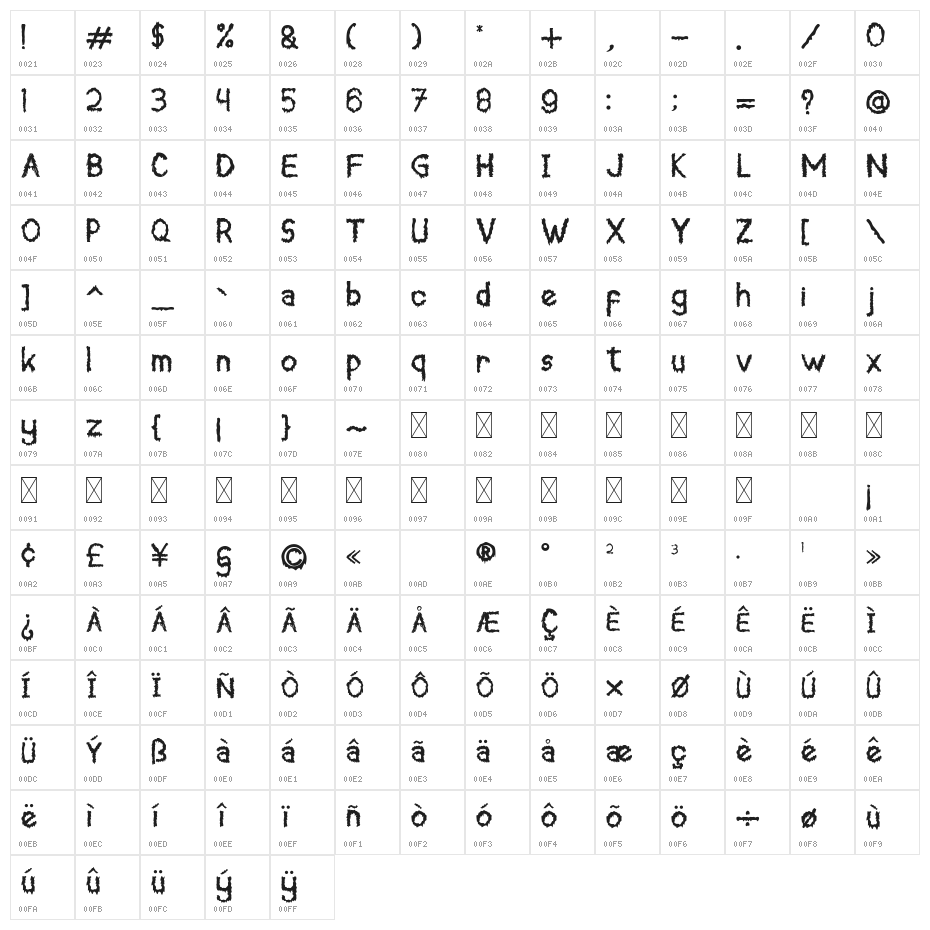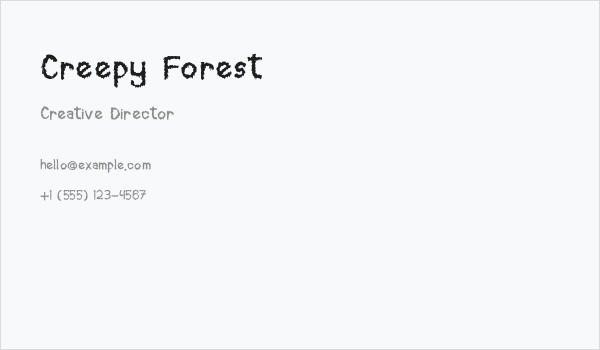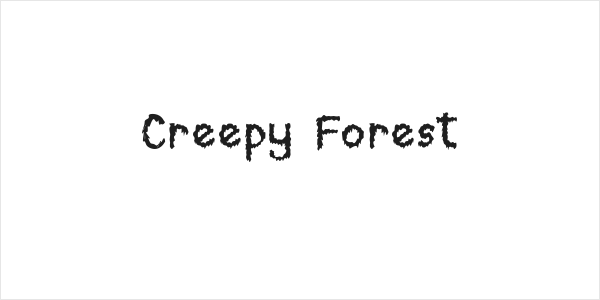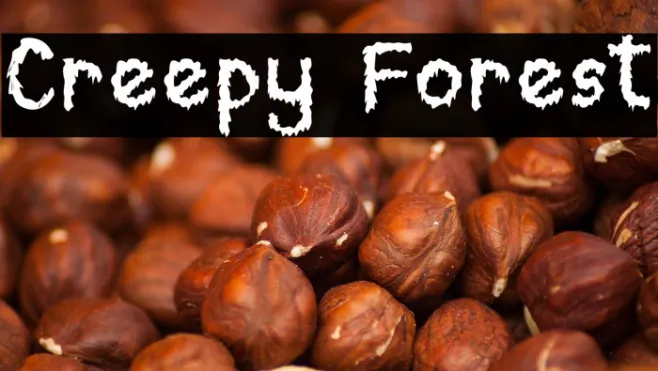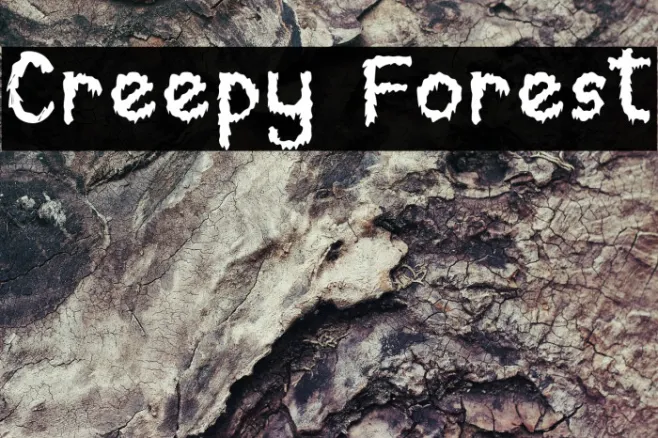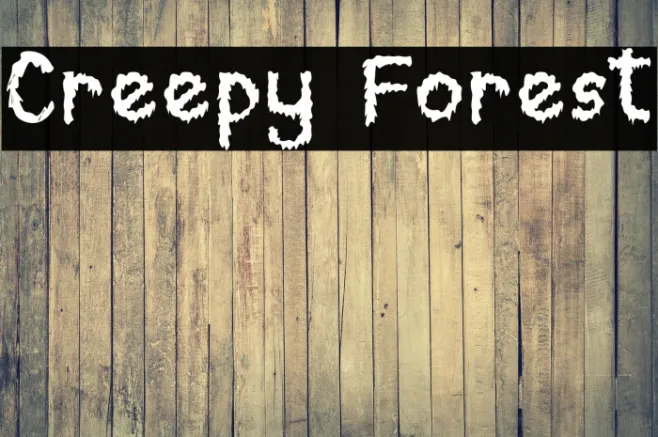
Creepy Forest Font
Creepy Forest Description
This font features a unique and eerie design, reminiscent of twisted branches or thorny vines. Each character is crafted with jagged edges and irregular shapes, creating a sense of movement and unease. The uppercase and lowercase letters maintain a consistent style, with the uppercase being slightly more pronounced. Numbers and special characters follow the same unsettling theme, making this font ideal for projects that require a spooky or mysterious atmosphere. The overall appearance is bold and striking, ensuring that it captures attention and conveys a sense of foreboding.
| Proposed Projects | Ideal for Halloween-themed designs, horror movie posters, haunted house invitations, or any project requiring a spooky aesthetic. |